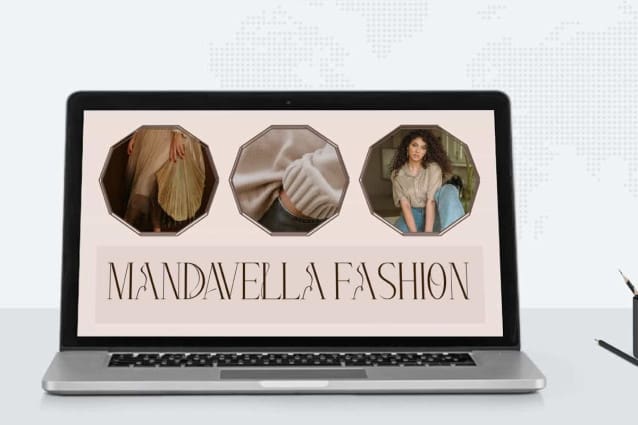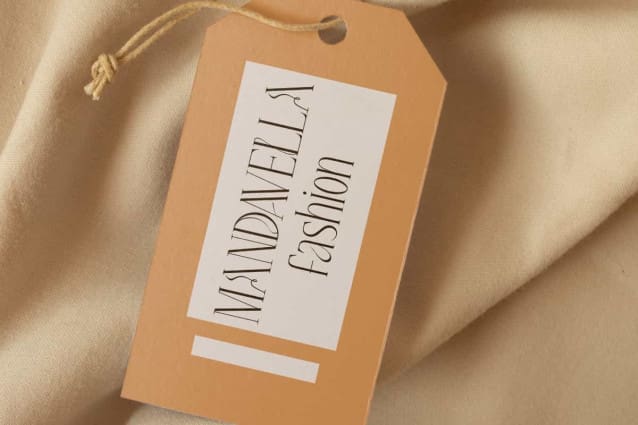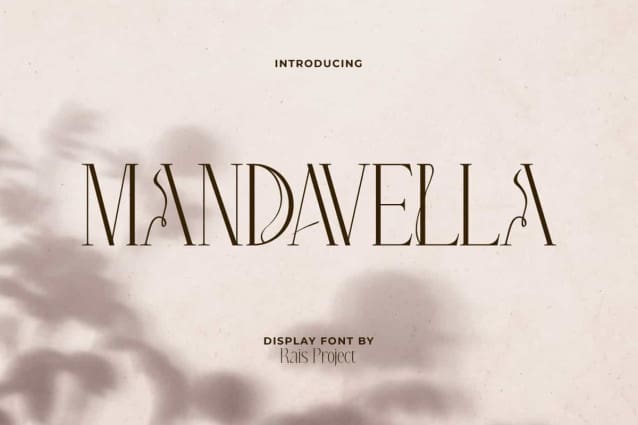
Mandavella Font
Mandavella Font is a sophisticated serif display font, created by RaisProject. This font has a minimalist letter style with the addition of beautiful lines in the Alternate characters. It will be good for any designs, such as brand image, cover, custom design, flyer, invitation, label, magazine, marketing material, menu, poster, product packaging, quotes, signage, stationery, website page, and more!
Mandavella Font including a complete set of Uppercase and Lowercase basic characters, Numerals, large range of Punctuation, Symbols, and Alternate. This font also suitable for various industries, such as advertising, beauty product, cafes, event or wedding organizer, fashion, florist, home furniture, marketing, photography, printing, publishing, spa and salon, etc.